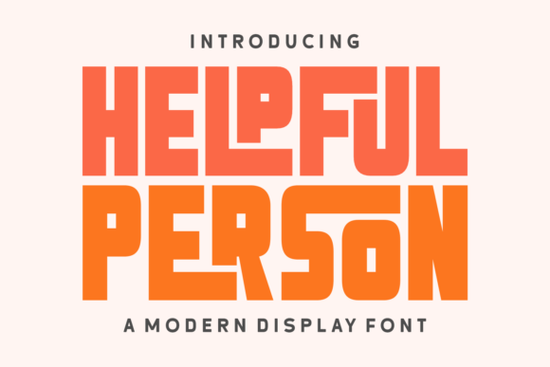
When you're looking for a font that can bring a touch of nostalgia and a dash of modern vibrancy to your designs, the Helpful Person Font is a fantastic choice. This retro display typeface is perfect for those who want to infuse their projects with a unique and memorable aesthetic.
What Makes Helpful Person Stand Out?
The Helpful Person Font is a beautifully crafted retro display typeface that combines chunky, imposing block structures with gentle curves and playful ligatures. This blend creates an instantly recognizable and charming look, reminiscent of the 1970s. Whether you're working on Christmas branding, Thanksgiving invitations, or vintage clothing labels, this font adds a distinctive and nostalgic feel to your designs.
Ideal Use Cases for Helpful Person Font
This versatile font is ideal for a wide range of creative projects. Here are some specific use cases where Helpful Person can shine:
- Event Posters: Create eye-catching posters for events like concerts, festivals, and community gatherings.
- Branding and Logotypes: Develop unique and memorable logos for small businesses, boutiques, and artisanal brands.
- Packaging Design: Add a touch of retro charm to product packaging, making it stand out on the shelves.
- Editorial Layouts: Use it for magazine headers, article titles, and other editorial elements to add a dynamic and engaging look.
Why Choose Helpful Person for Your Next Project?
There are several reasons why Helpful Person is a great choice for designers, crafters, and print-on-demand sellers:
- Versatility: It works well in various design contexts, from digital to print, making it a go-to font for multiple projects.
- User-Friendly: The font is easy to use, with PUA encoding that allows access to a wide range of glyphs and ligatures.
- Unique Aesthetic: Its combination of bold, chunky blocks and gentle curves gives it a distinctive and memorable look.
- Nostalgic Yet Modern: While it has a retro feel, it also incorporates modern elements, making it suitable for contemporary designs.
How to Use Helpful Person in Different Projects
Here are some practical tips for incorporating Helpful Person into your designs:
- Christmas Branding: Use it for holiday cards, gift tags, and festive banners to create a warm and inviting atmosphere.
- Vintage Clothing Labels: Add a touch of retro charm to clothing tags and labels, making them stand out and appeal to a vintage-loving audience.
- Event Invitations: Design eye-catching invitations for weddings, parties, and special events, giving them a unique and personal touch.
- Product Packaging: Enhance the visual appeal of product packaging with this font, making it more attractive and memorable.
- Choose the Right Context: Decide on the type of project (e.g., event poster, branding, packaging) and ensure the font aligns with the overall aesthetic.
- Explore Glyphs and Ligatures: Utilize the PUA encoding to access and incorporate the font’s extensive range of glyphs and ligatures.
- Test and Adjust: Experiment with different sizes and styles to see what works best for your design. Make adjustments as needed to achieve the desired effect.
- Combine with Complementary Fonts: Pair Helpful Person with other fonts to create a balanced and visually appealing design. Consider using a simple, clean font for body text to complement the display font.
Comparing Helpful Person with Other Retro Fonts
While there are many retro fonts available, Helpful Person stands out with its unique blend of bold and gentle elements. Here’s how it compares to some other popular retro fonts:
Where to Find and Use Helpful Person Font
You can find and purchase the Helpful Person Font at Creative Fabrica. Once you have the font, you can easily integrate it into your design software, such as Adobe Illustrator, Photoshop, or Canva.
Practical Checklist for Using Helpful Person Font
To make the most of Helpful Person in your next project, follow these steps:
By following these tips, you can effectively use Helpful Person to create designs that are both nostalgic and modern, leaving a lasting impression on your audience.